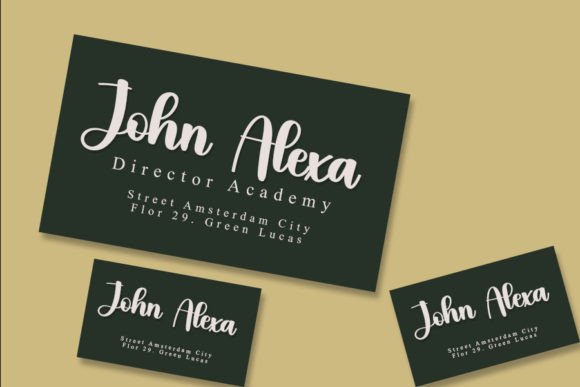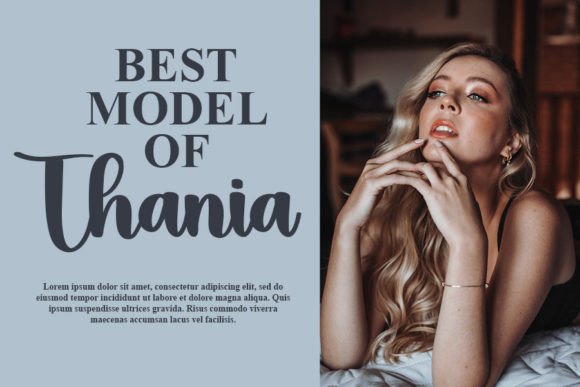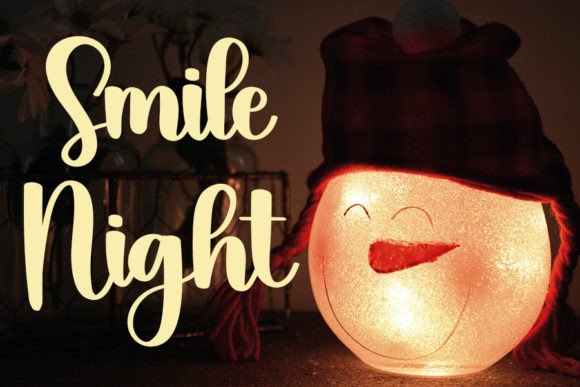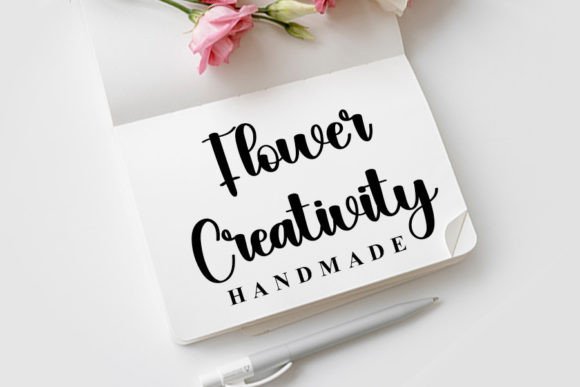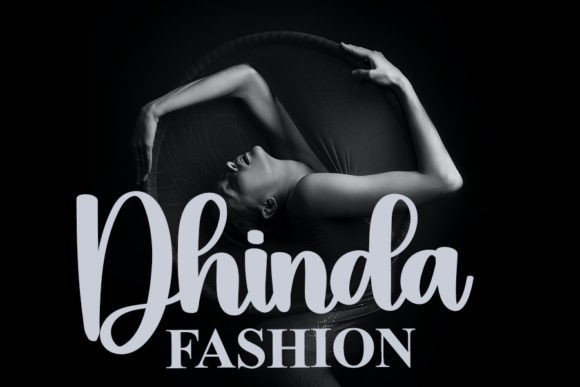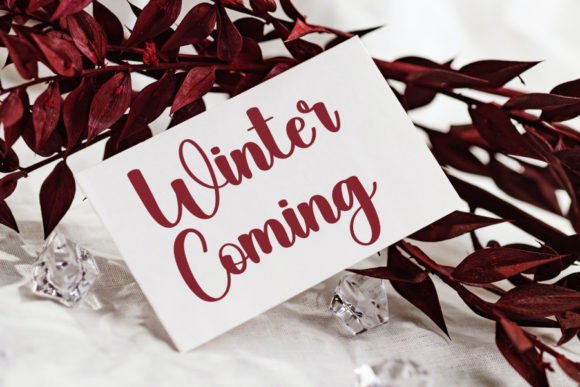
Introducing Again Font: Elevate Your Designs with Timeless Elegance
In the realm of typography, few fonts manage to strike a balance between modern flair and classic sophistication. Again Font is one such exceptional typeface that brings a contemporary atmosphere to the table while drawing inspiration from timeless classic calligraphy. This trendy handwritten font is poised to add a touch of elegance and class to any design project you undertake.
The Essence of Again Font
Again Font stands out with its impeccable form, a characteristic that sets it apart in the crowded world of digital fonts. Its design is rooted in the traditions of calligraphy, yet it carries a modernity that makes it highly versatile for a wide range of applications. Whether you’re working on a branding project, a wedding invitation, a fashion magazine, or any other design endeavor, Again Font promises to bring a level of sophistication that elevates your work.
Key Features of Again Font
- Handwritten with a Contemporary Twist: Again Font boasts a handwritten style that feels both personal and refined. Its contemporary twist ensures that it doesn’t get lost in traditional calligraphy but instead stands out with a fresh appeal.
- Trendy and Versatile: The font’s design is versatile enough to fit into various themes and styles, making it a go-to choice for designers looking for a typeface that can adapt to different creative directions.
- Elegance and Class: The core of Again Font’s design philosophy is to bring an air of elegance and class to your projects. Its elegant strokes and balanced form ensure that your designs exude a premium feel.
- Impeccable Form: The attention to detail in Again Font’s design results in an impeccable form that speaks of quality and craftsmanship. This makes it ideal for projects where presentation is paramount.
Inspiration from Timeless Classic Calligraphy
Again Font draws its inspiration from the rich heritage of classic calligraphy, a tradition that values beauty, precision, and expressiveness. By integrating these timeless elements into its design, Again Font achieves a rare balance of classic charm and modern appeal. This blend ensures that the font feels both familiar and refreshingly new, making it an excellent choice for designers looking to create works that stand out yet remain grounded in tradition.
Applications of Again Font
The versatility of Again Font means it can be used in a multitude of design projects. Here are some ideal applications:
- Branding and Logotypes: The elegant and contemporary feel of Again Font makes it perfect for branding projects where a sophisticated image is crucial.
- Wedding and Event Invitations: For invitations and event materials, Again Font brings a touch of class and personal warmth, making any occasion feel special.
- Fashion and Beauty: In the world of fashion and beauty, Again Font’s modern yet classic appeal can add a high-end feel to magazines, advertisements, and product packaging.
- Packaging and Product Design: For product design, Again Font can elevate labels and packaging to convey a sense of luxury and attention to detail.
Again Font is more than just a typeface; it’s a design tool that brings a perfect blend of contemporary style and classic elegance to your projects. Its inspiration from timeless calligraphy, combined with its modern appeal, makes it an invaluable asset for designers and crafters looking to infuse their work with sophistication and class. Whether you’re aiming to create visually stunning branding, elegant invitations, or high-end product designs, Again Font is poised to be your go-to choice for adding that extra layer of refinement and style.
Embrace the beauty and versatility of Again Font in your next design project and experience firsthand how this trendy handwritten font can elevate your creations to new heights of elegance and class.